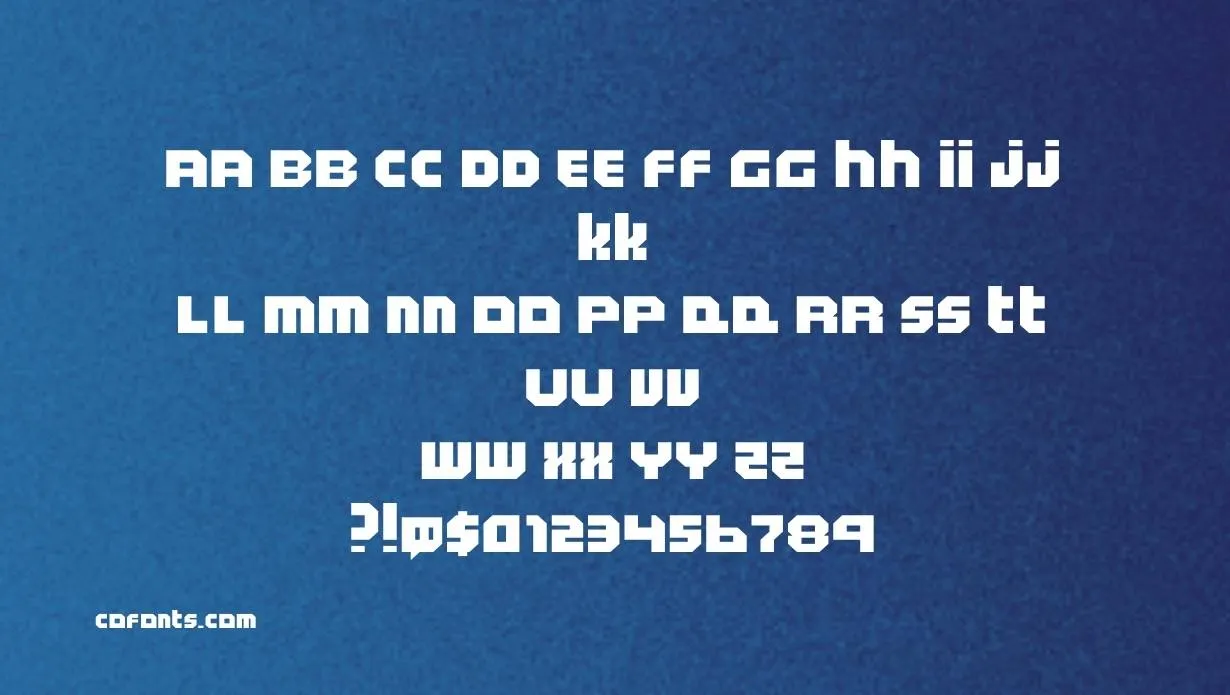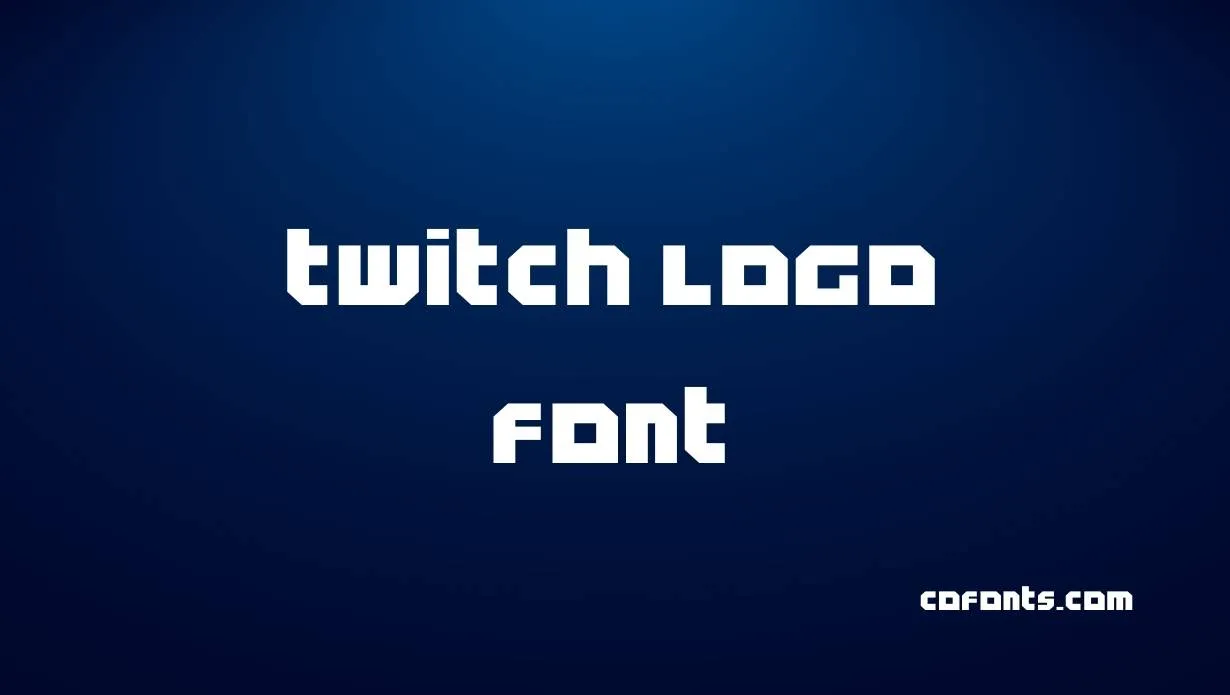
About Twitch Logo Font Free Download
Twitch Logo Font Free Download is a modern typeface available in multiple variants and styles.
- Twitch Logo Font Regular
- Twitch Logo Font Bold
- Twitch Logo Font Italic